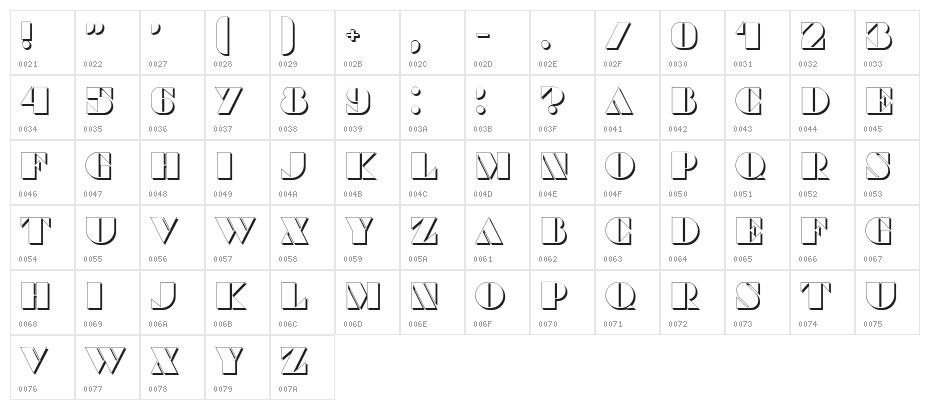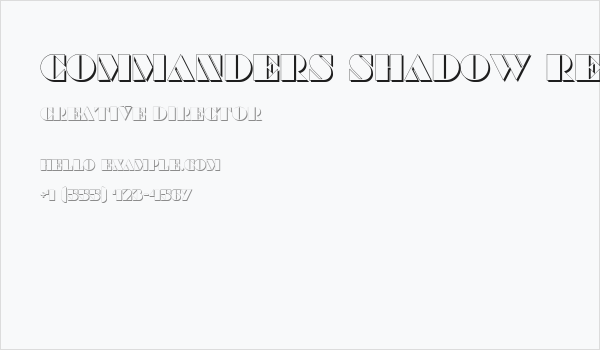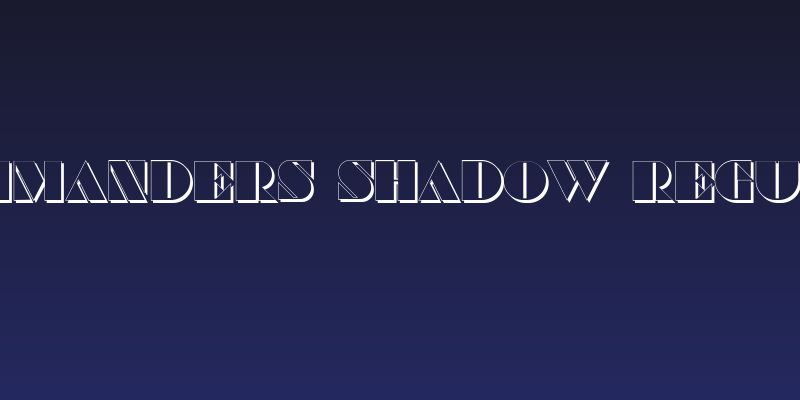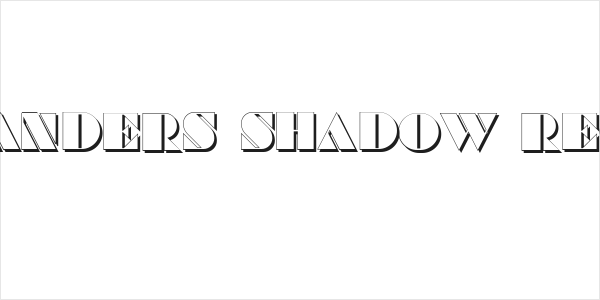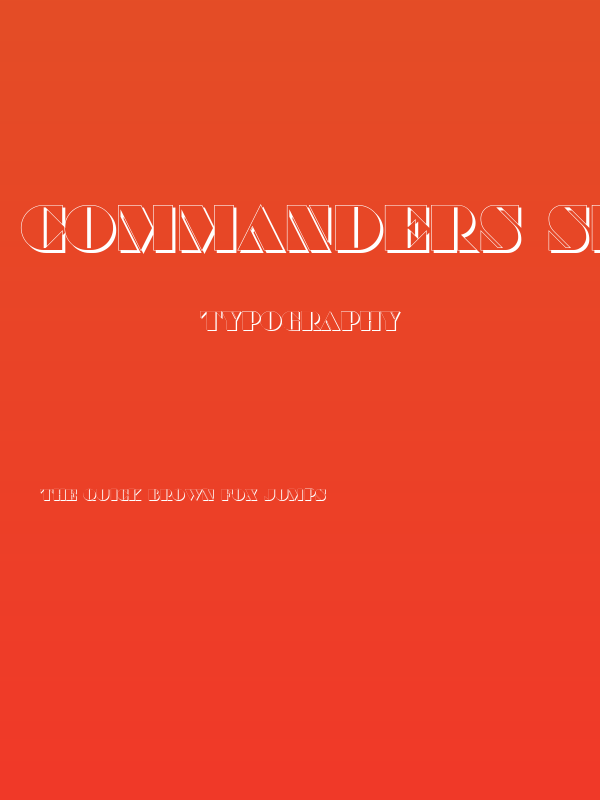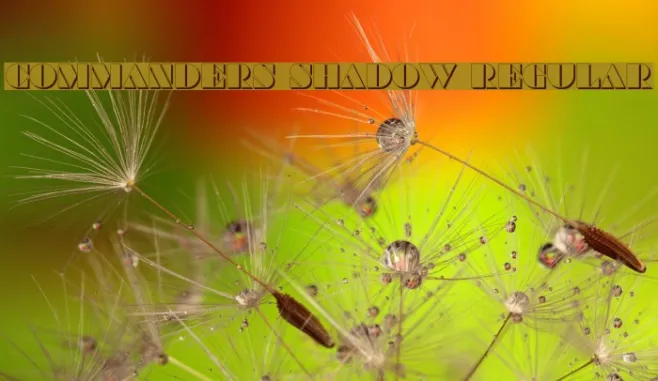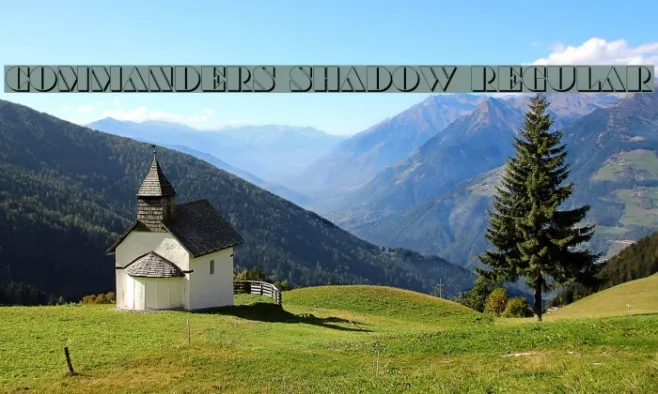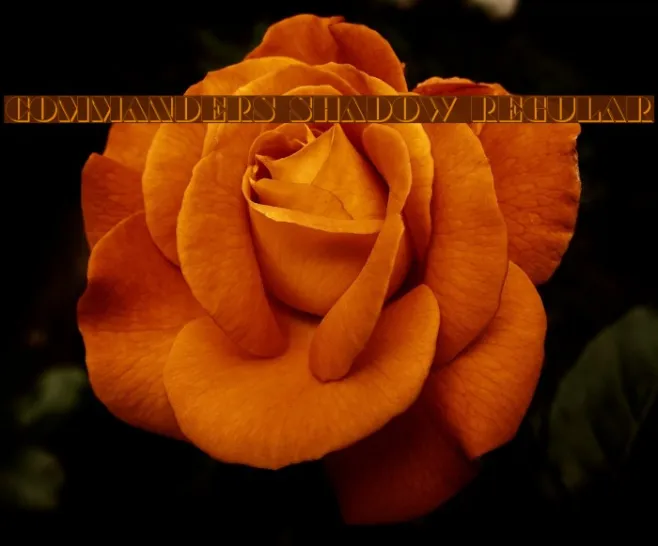
Commanders Shadow Regular Font
Commanders Shadow Regular Description
This font features a bold and striking design with a three-dimensional shadow effect that gives it a unique and eye-catching appearance. The uppercase letters are characterized by sharp angles and geometric shapes, creating a sense of depth and dimension. The numbers and special characters maintain this bold style, ensuring consistency across all elements. The font's design is modern and dynamic, making it suitable for projects that require a strong visual impact. Its distinct shadow effect adds a layer of sophistication and creativity, making it ideal for headlines, posters, and branding materials.
| Proposed Projects | Ideal for headlines, posters, branding, and any project needing a bold, modern aesthetic. |